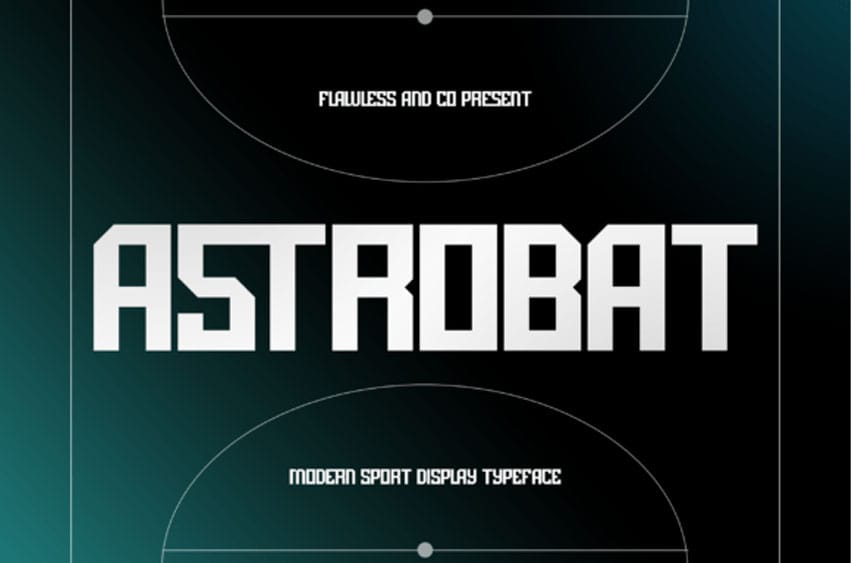
Astrobat Font is a bold and modern sport display typeface designed to capture the intensity, energy, and futuristic edge of athletic competition.
With its sharp geometric cuts, powerful letterforms, and commanding presence, Astrobat delivers a sense of speed and strength that’s perfect for high-impact visuals. Whether used for team branding, esports titles, posters, or dynamic headlines, Astrobat brings a cutting-edge style that pushes sports typography into a new era.